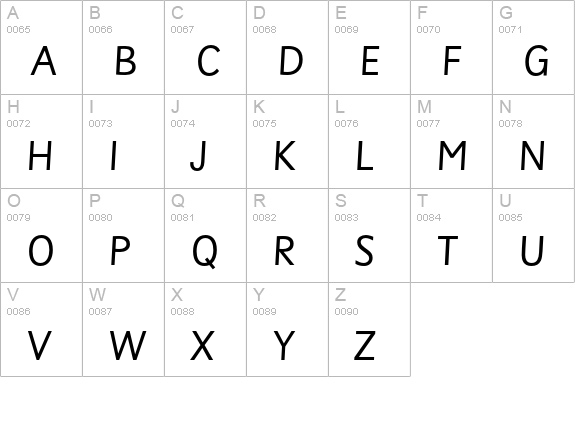
Sassoon Primary is a delightful and charming font that exudes a sense of playfulness and whimsy. Designed specifically for primary school students, this font captures the essence of learning and discovery. Its rounded edges and simplified letterforms make it easy to read and comprehend, making it an ideal choice for educational materials and children's books. But what truly sets Sassoon Primary apart is its availability as a free download at FontsMarket.com. Yes, you read that right - this incredible font can be yours to use without any cost! Whether you're a teacher looking to create engaging worksheets, a parent designing personalized learning materials, or a designer seeking an enchanting font for a children's project, Sassoon Primary is the perfect solution for you. With its generous spacing and clear legibility, this font ensures that young learners can easily navigate through text without any confusion. Its carefully designed letterforms are approachable and inviting, encouraging children to dive into the world of reading and writing with enthusiasm. Sassoon Primary's versatility extends beyond the classroom as well. Its friendly appearance and cheerful demeanor make it a popular choice for invitations, greeting cards, and other creative endeavors that aim to capture the spirit of joy and innocence. So why wait? Head over to FontsMarket.com and download Sassoon Primary today. Experience the freedom of using a high-quality font that not only meets the needs of young learners but also adds a touch of delight to your designs. Don't miss out on this incredible opportunity to enhance your projects with Sassoon Primary - the font that brings learning to life!